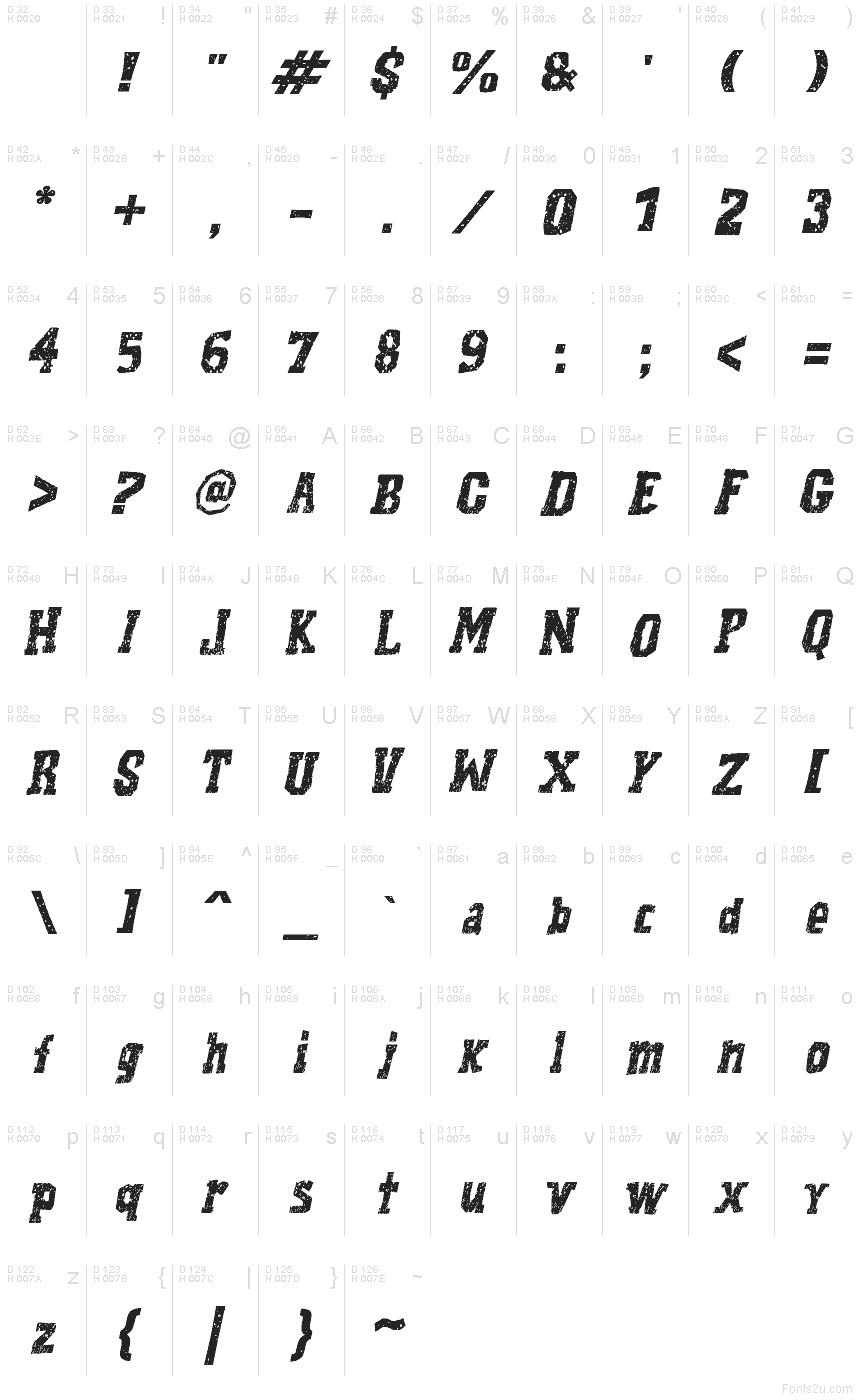
Cordel Encarnado Italic
Cordel Encarnado Italic font by Galdino Otten Fonts is a bold and eroded display font with a grunge texture and distressed appearance. The style of this free resource gives it a vintage feel with an artistic flair which is enhanced by its bold design for more effective contemporary design that stand out from the crowd.
Cordel Encarnado Italic can be used for your typography posters, album covers, movie titles/openings, festivals or concert ads. It’s also suitable for book covers, printed postcards, product packaging/labeling projects, as well as social media posts. Fabric print-on-demand t-shirts are also an entertaining option to consider!